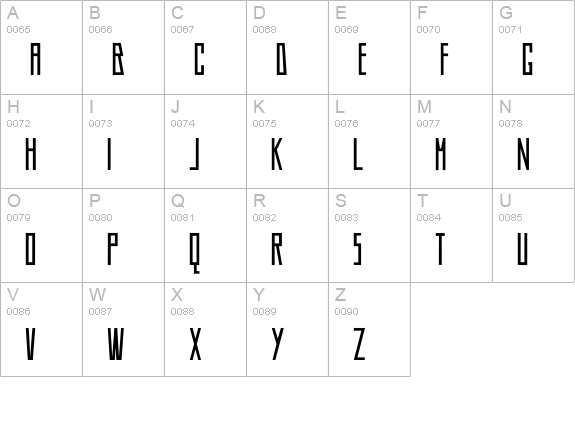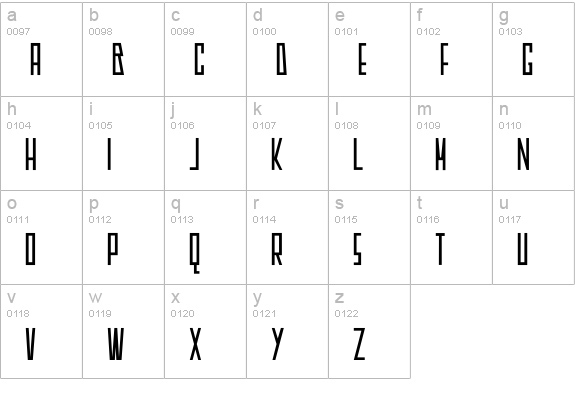
DK Americain is a stunning font that captures the essence of vintage American design. With its bold, uppercase letters and artistic flair, this font is perfect for adding a touch of nostalgia to any project. Whether you're designing a retro-inspired poster, creating a vintage logo, or even crafting a classic Americana-themed website, DK Americain will elevate your design to the next level. What sets DK Americain apart is not only its timeless aesthetic, but also the fact that it is free. Yes, you read that right - this extraordinary font is freely available to download at FontsMarket.com. Now, you can bring a piece of Americana into your designs without breaking the bank. The carefully crafted details of DK Americain make it a versatile font that can be used in various contexts. Its bold and expressive letterforms command attention and effortlessly captivate the viewer. Whether used in headlines, titles, or even body text, this font will ensure that your message is delivered with impact and style. DK Americain's wide range of characters and ligatures allow for endless creative possibilities. Its vintage charm combined with its modern availability make it a must-have for designers and typographers alike. So, why wait? Download DK Americain for free at FontsMarket.com and let your creativity soar.